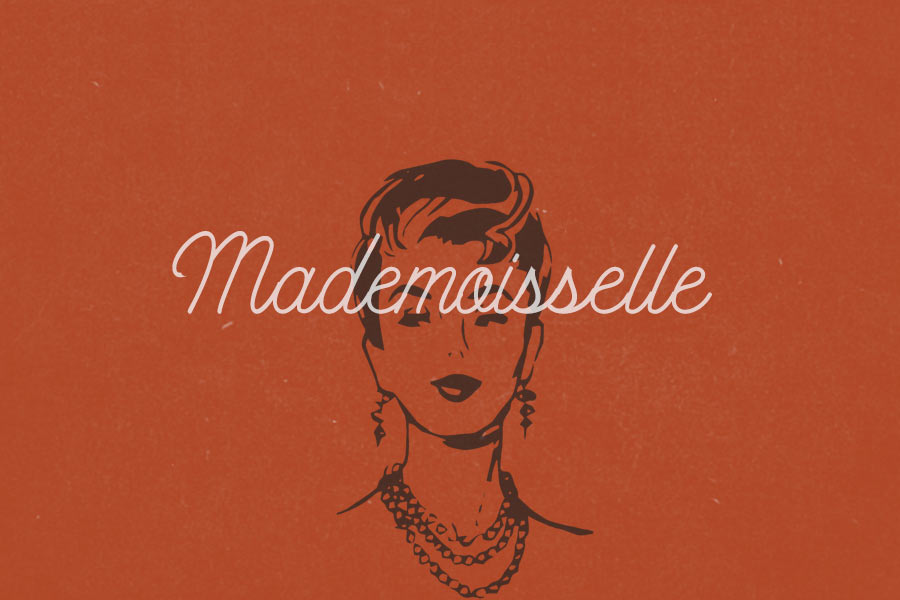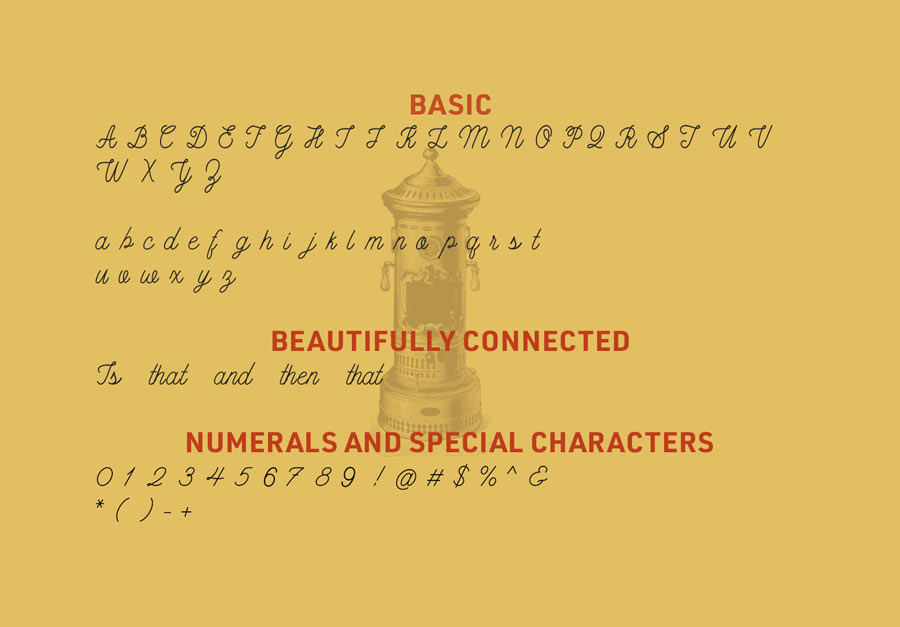
Mademoiselle is the first ever script typeface released by Nautica Studios. Designed by Aritra Das, Mademoiselle is a free mono-line script font with a strong vintage vibe. The font design was mainly inspired by the 50’s and 60’s era.
This font is suitable for feminine or high culture designs, and for labels and logotype designs.